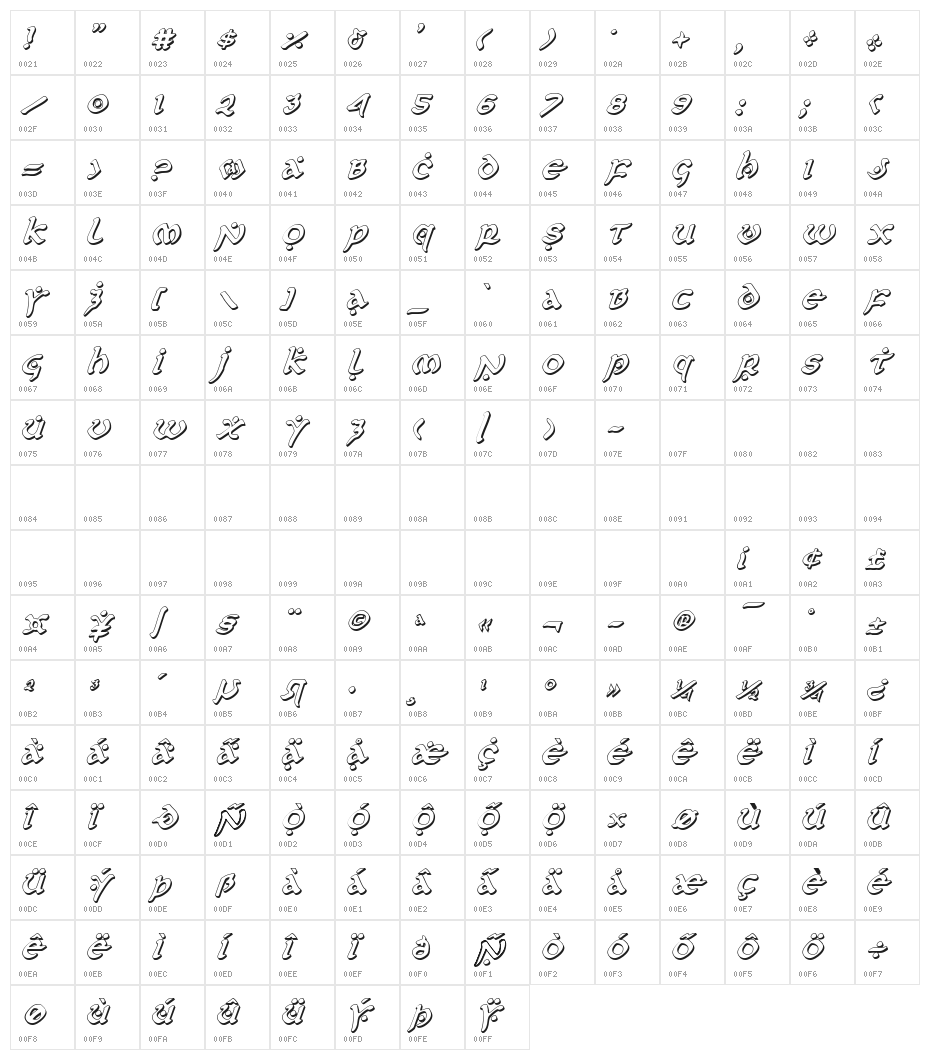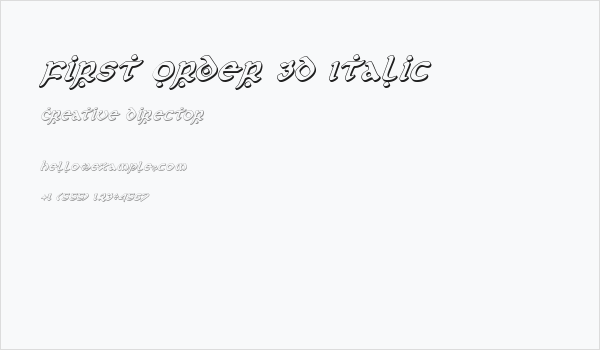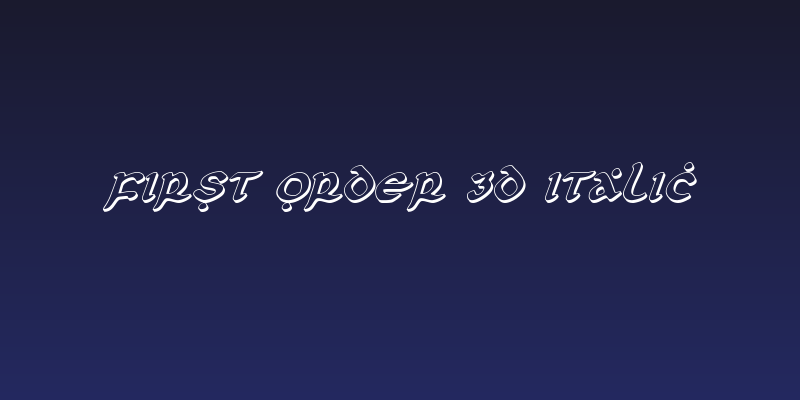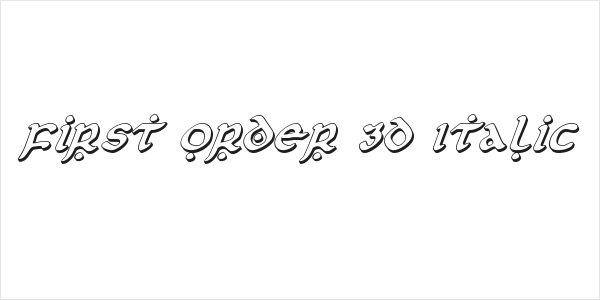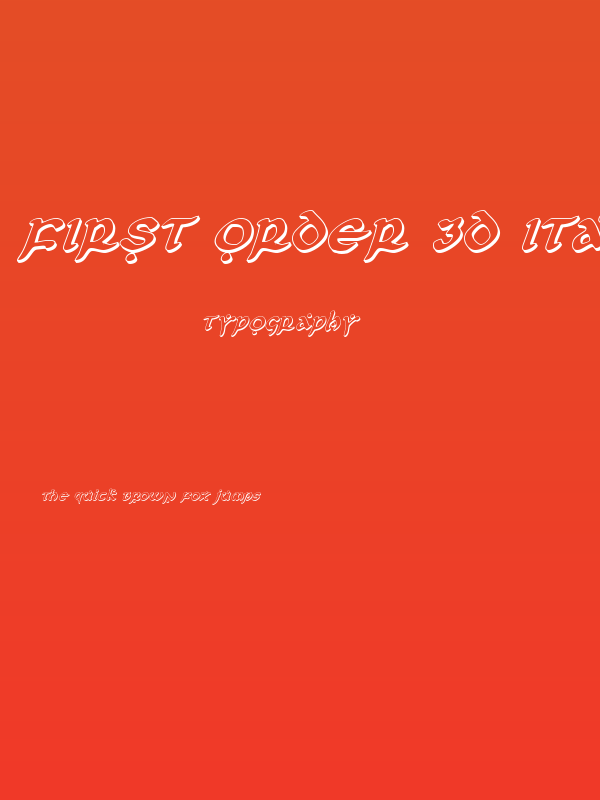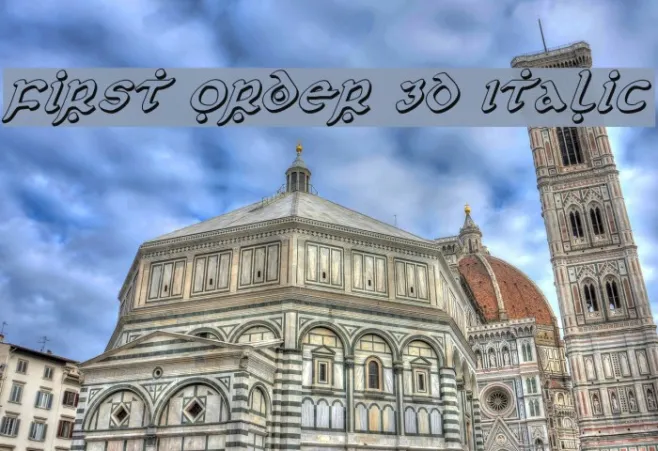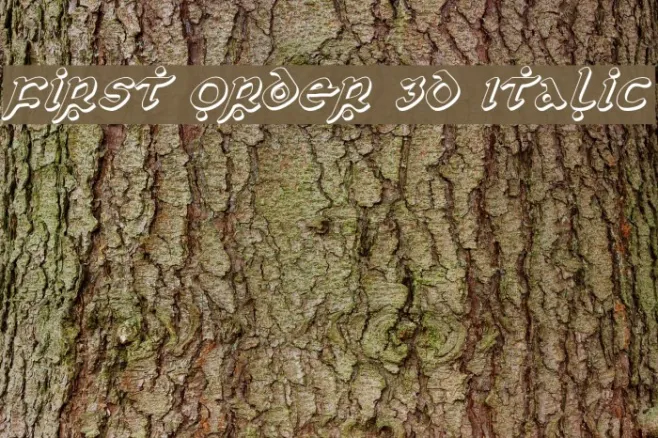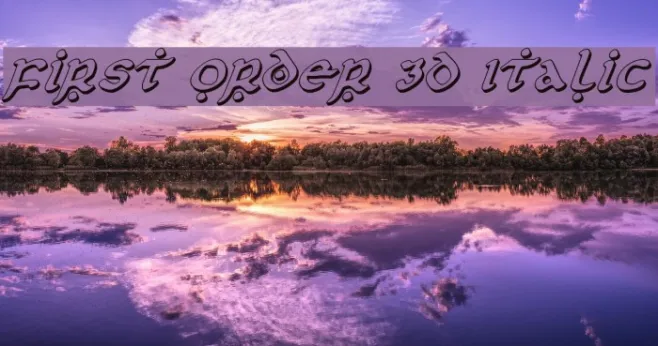
First Order 3D Italic Font
First Order 3D Italic Description
This font features a dynamic and bold 3D italic style, characterized by its thick outlines and shadowing that give a sense of depth and movement. The letters are slightly slanted, enhancing the italic effect, and the strokes are consistent in width, providing a uniform appearance. The design incorporates a playful and energetic vibe, making it suitable for eye-catching displays. The numerals and special characters maintain the same stylistic elements, ensuring cohesion across all characters. This font's unique 3D effect makes it stand out, offering a modern twist on traditional italic fonts.
| Proposed Projects | Ideal for posters, headlines, logos, and any project requiring a bold, eye-catching typeface. |